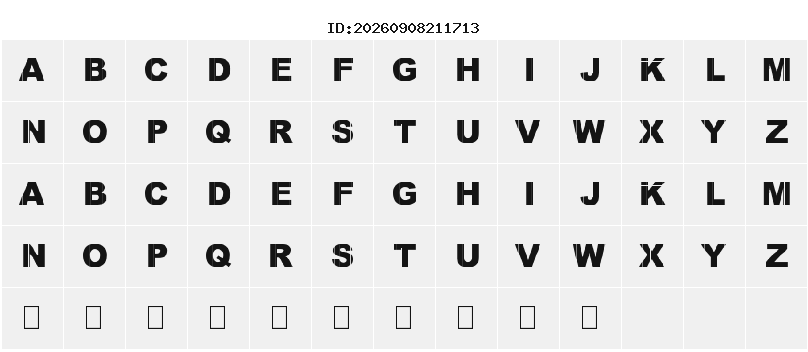
Vinyl Tile Preview
• Font Name: Vinyl Tile
About Vinyl Tile.ttf
Vinyl Tile.ttf is a modern, elegant sans-serif font designed for ultimate readability and visual harmony. Perfect for branding, headlines, web design, and print materials.